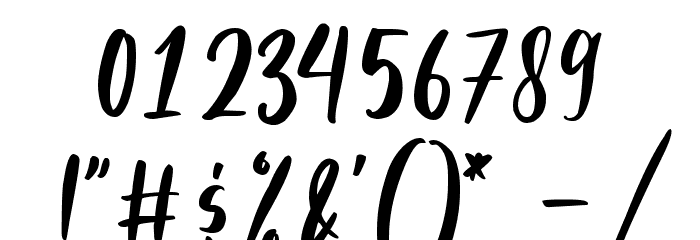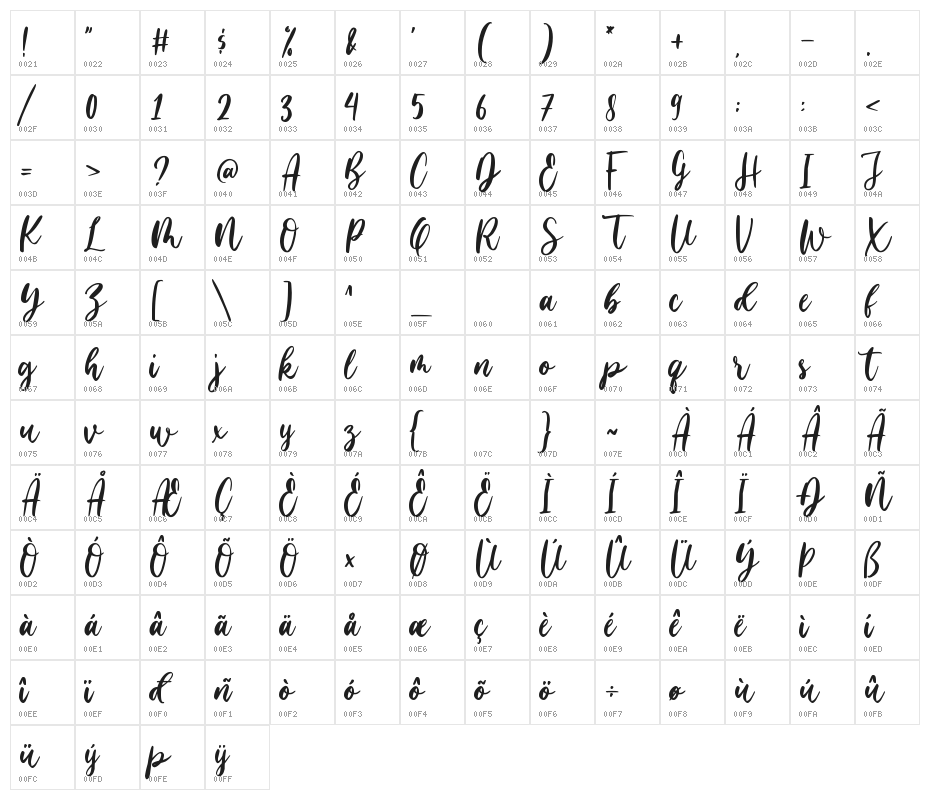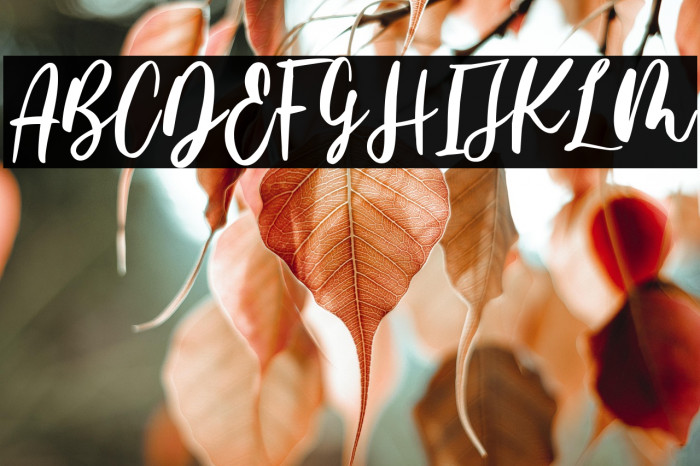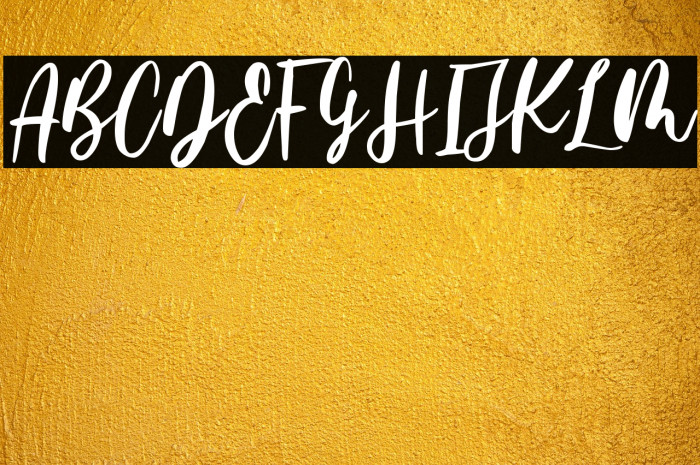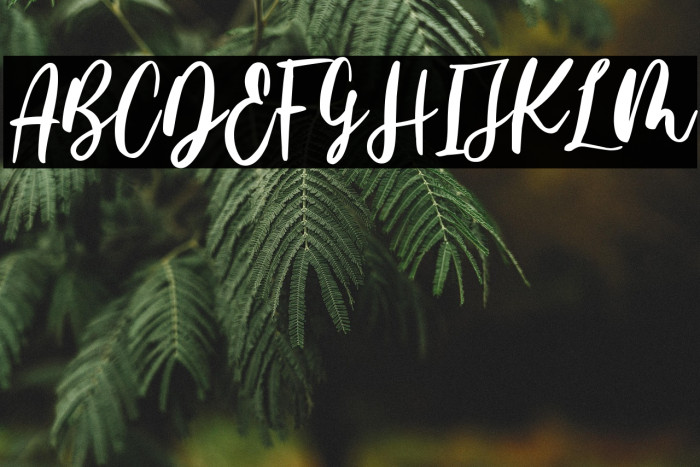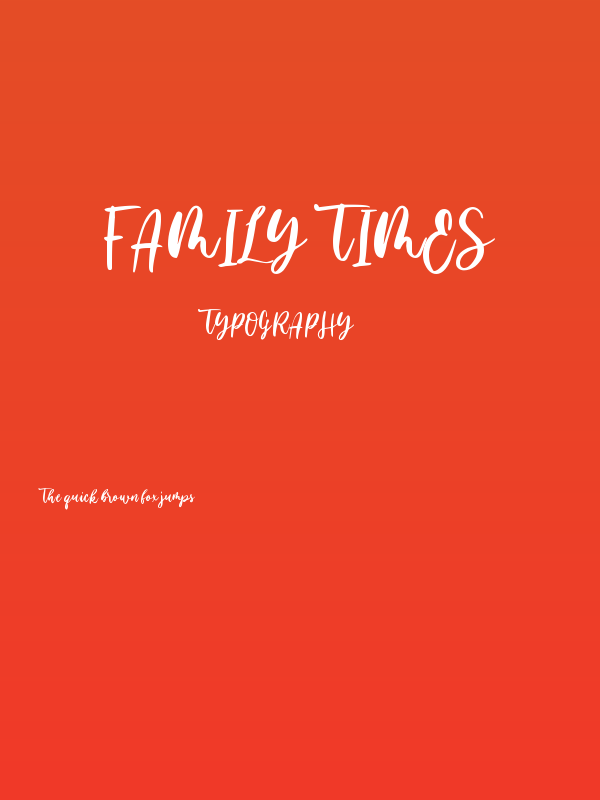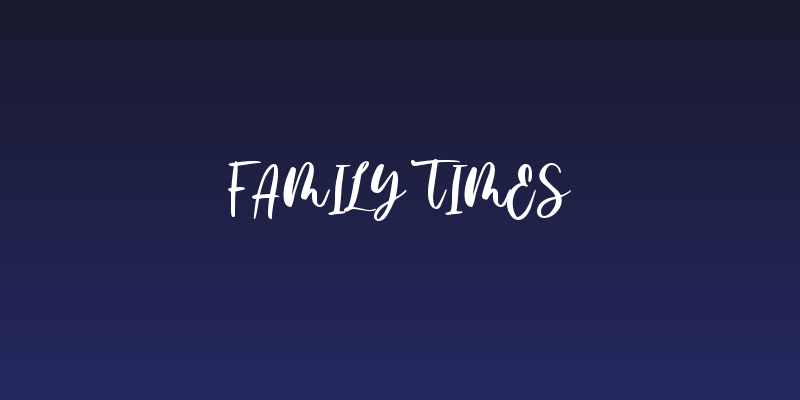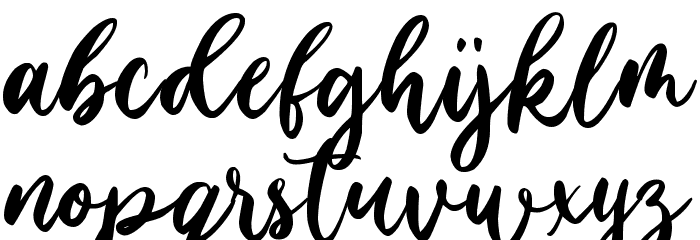
Family Times Font
Family Times Description
This font features a lively and dynamic script style, characterized by its fluid and connected letterforms. The uppercase letters are bold and expressive, with a slight slant that adds to the overall energetic feel. The lowercase letters maintain a consistent flow, enhancing readability while retaining a handcrafted appearance. Numbers and special characters are designed to match the playful and artistic nature of the alphabet, making them suitable for creative projects. The strokes are moderately thick, providing a balanced contrast that ensures visibility without overwhelming the design. This font is ideal for projects that require a personal touch, such as invitations, greeting cards, and branding materials.
| Proposed Projects | Ideal for invitations, greeting cards, branding materials, and any project needing a personal, artistic touch. |